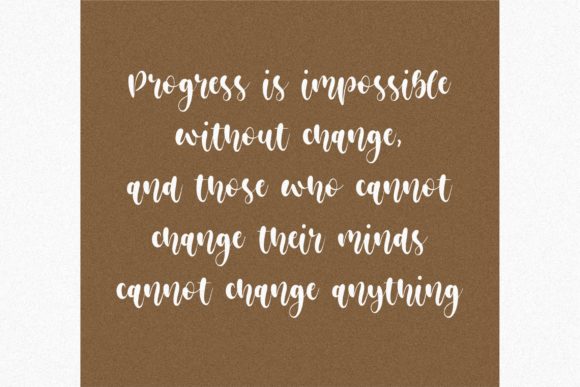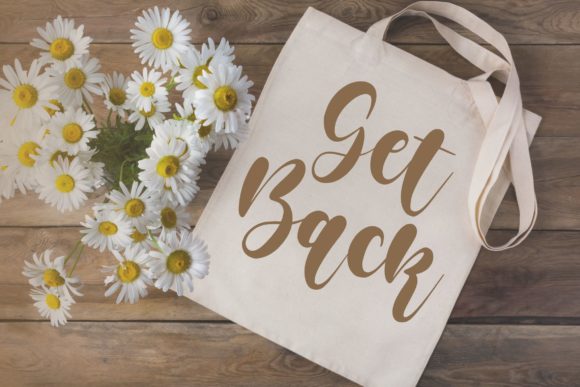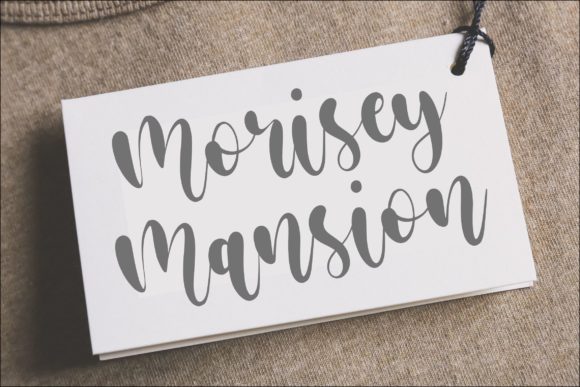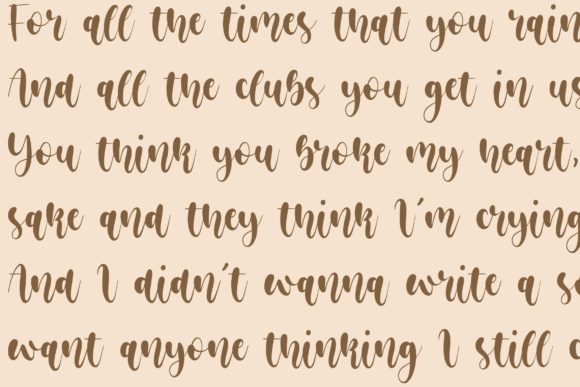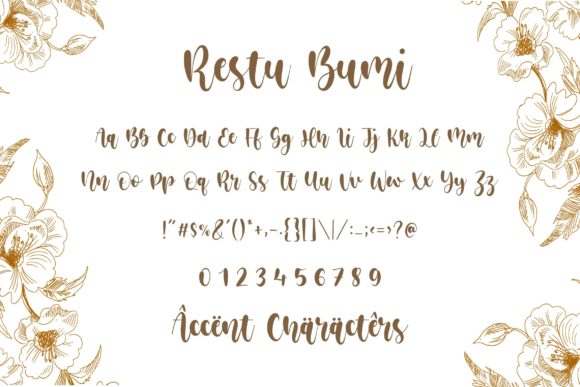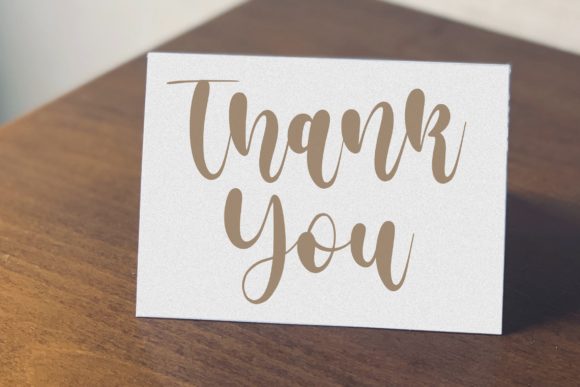
Introduction to Restu Bumi Font Font
Fonts play a crucial role in design, and the Restu Bumi Font font is a typeface that brings both character and versatility to any project. Whether you’re working on a branding project, a website, or a print design, the Restu Bumi Font font offers a unique style that can elevate your work.
| 📌 Font Name | Restu Bumi Font |
| 👤 Author | Balpirick |
Restu Bumi is a flowing handwritten font, described by an elegant touch, perfect for your favorite projects.
Fall in love with its incredibly distinct and timeless style and use it to create spectacular designs .
Key Features of Restu Bumi Font Font
Why Choose Restu Bumi Font Font?
The Restu Bumi Font font is more than just a typeface – it’s a design tool that helps you communicate your message with style and clarity. Its unique character set and versatile design make it suitable for a wide range of applications, from elegant invitations to bold headlines.
With its carefully crafted letterforms and balanced proportions, the Restu Bumi Font font ensures readability and visual appeal across all mediums.
What makes Restu Bumi Font font special?
The Restu Bumi Font font stands out with its unique design, exceptional readability, and versatility across various design applications.